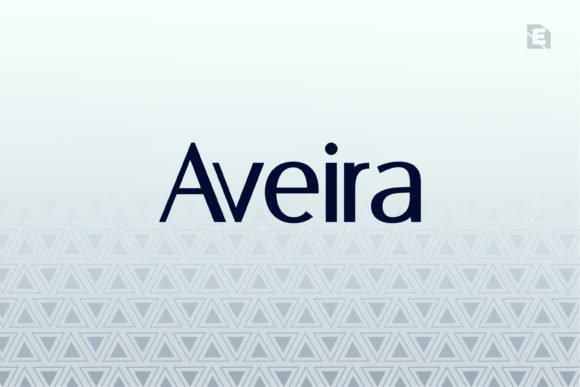
A Simple yet Elegant Typographic Choice: Aveira Font
You know that moment when you’re brainstorming ideas for a new project and everything just clicks? The design, the colors, the typography – it all comes together in perfect harmony. For many designers, this moment often begins with a single, key element: the font. This is where the Aveira Font comes in – a clean, minimal sans serif font that’s perfect for bringing your creative ideas to life.
Aveira Font is designed to be versatile, making it a valuable addition to any project. Whether you’re working on a branding campaign, a website, or a digital product, this font’s sleek lines and modern feel will elevate your design and make it stand out from the crowd. By incorporating the Aveira Font into your creative process, you’ll discover a new level of sophistication and style in your work.
Aveira Font Key Features
- Font Size: The Aveira Font family consists of 4 weights (Light, Regular, Bold, and Black), offering flexibility for different design needs.
- Unique Characteristics: This font features a modern, elegant design with distinctive rounded edges and a friendly feel, making it suitable for a wide range of creative projects.
- Character Set: Aveira Font includes a comprehensive character set, covering Latin, Cyrillic, and Greek alphabets, as well as punctuation and symbols.
Aveira Font Review
After giving Aveira Font a try, I have mixed feelings about this font family.
- Unique style: Aveira Font offers a distinctive, modern aesthetic that can be perfect for branding and advertising projects.
- High-quality rasterization: The font’s rasterization is excellent, ensuring clear and crisp text even at small sizes.
- Good legibility: The font’s design prioritizes legibility, making it easy to read for a wide range of users.
- Limited character set: Aveira Font lacks some essential characters, including some punctuation marks and special symbols.
- Not ideal for body text: While the font is great for headings and titles, it’s not the best choice for body text due to its lack of subtlety and legibility at small sizes.
- Dependence on rasterization: As with many modern fonts, Aveira Font’s quality heavily depends on rasterization, which can lead to issues with text rendering on certain devices or systems.
Aveira Font is a solid choice for projects that require a modern, eye-catching font. However, its limitations make it less versatile than other font families. While it excels in certain areas, it falls short in others. Ultimately, the decision to use Aveira Font depends on your specific design needs and goals.
Getting the Most Out of Aveira Font
To get the most out of Aveira Font, experiment with different font sizes, colors, and styles to find the perfect combination for your design. You can also pair Aveira Font with other fonts to create a unique and visually appealing design.
Aveira Font is suitable for a variety of designs, including logos, branding materials, and digital products. It is also a great choice for creating a modern and elegant look in presentations and documents.